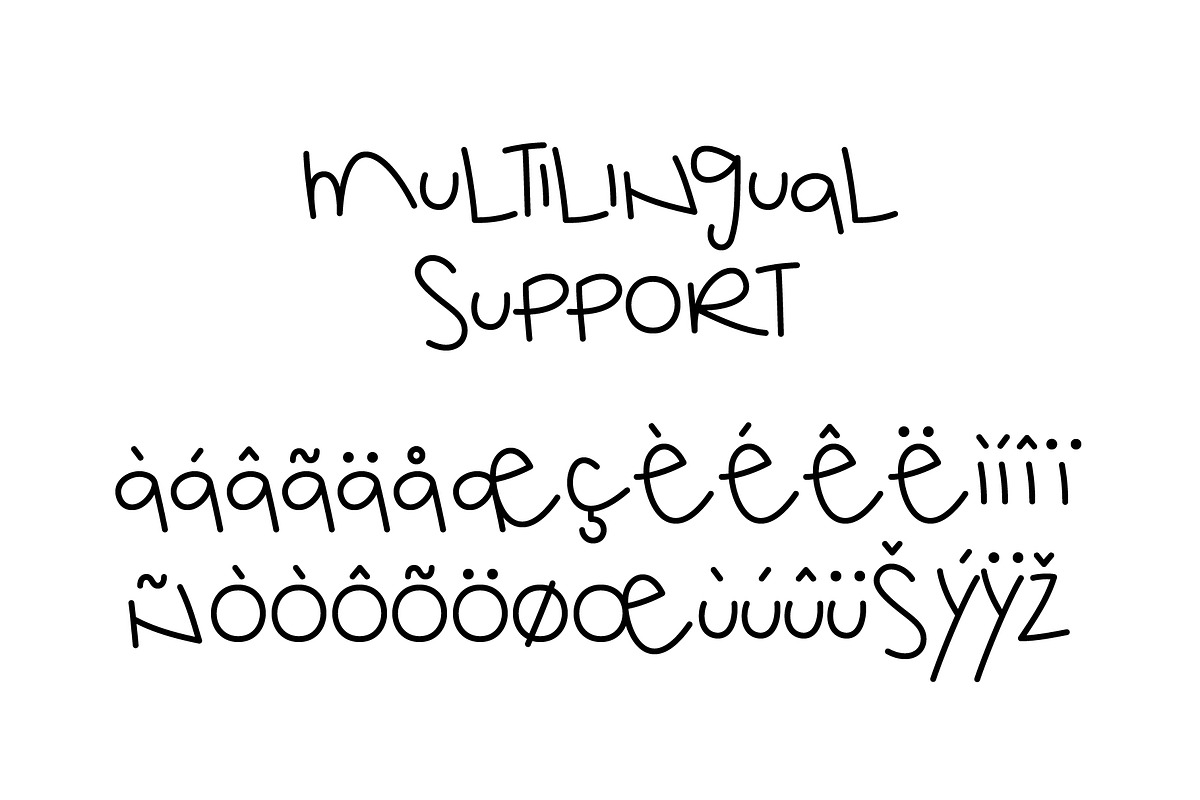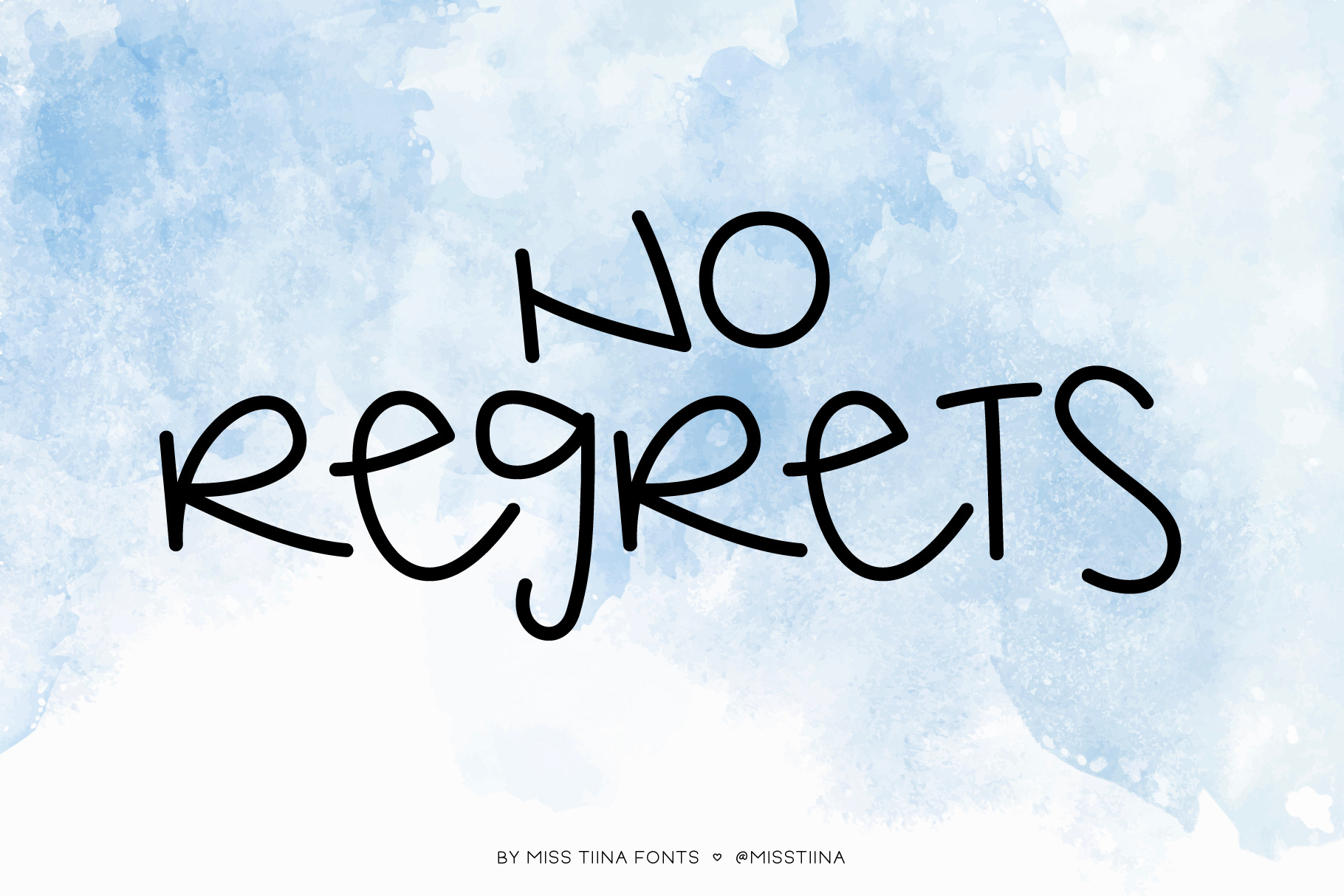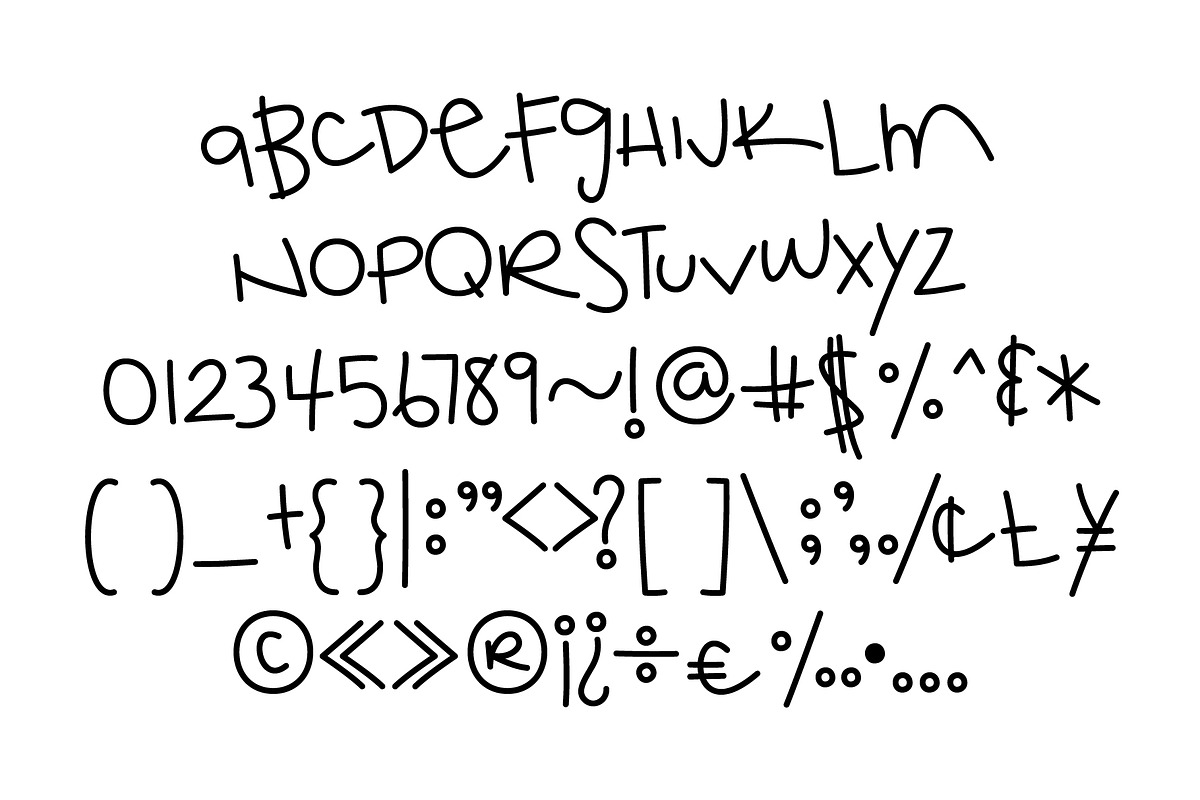
No Regrets Font
No Regrets is a fun and funky font with bouncing letters! No matter the topic, this font will be an incredible asset to your fonts’ library, as it has the potential to elevate any creation.
UPDATED 5.13.23 - This font, originally from 2011 now has perfected lines, better kerning and multilingual characters!